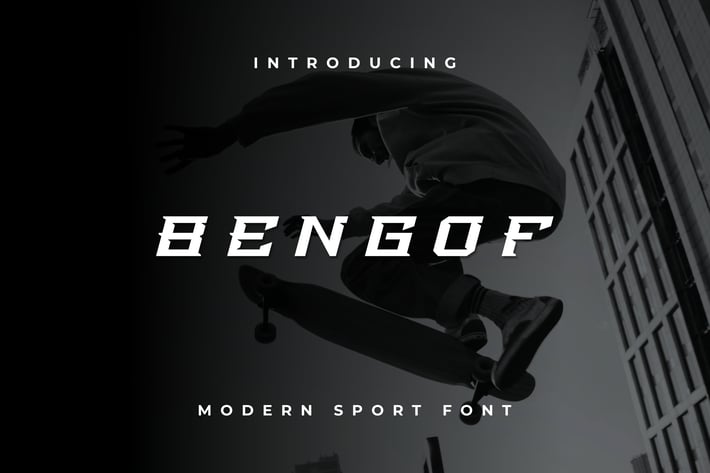
Bengof Font
Introducing our new product Bengof Font - Modern Font
Bengof Font - Modern Font is a bold and authentic display font. The font is suitable for any branding project like logo, esport, and many more. outstanding in a wide range of contexts.